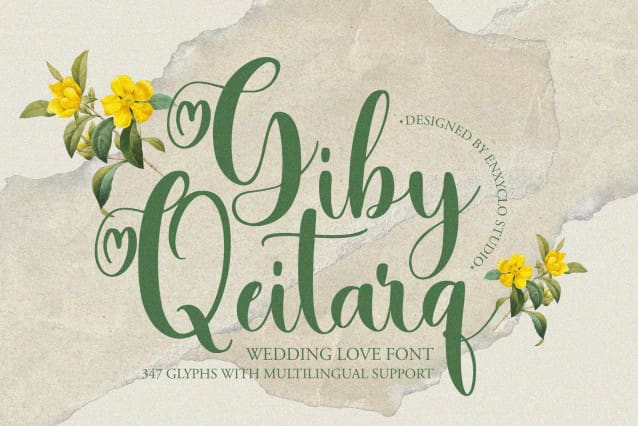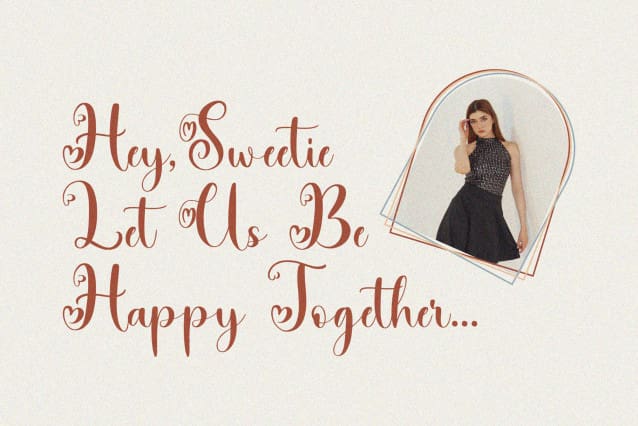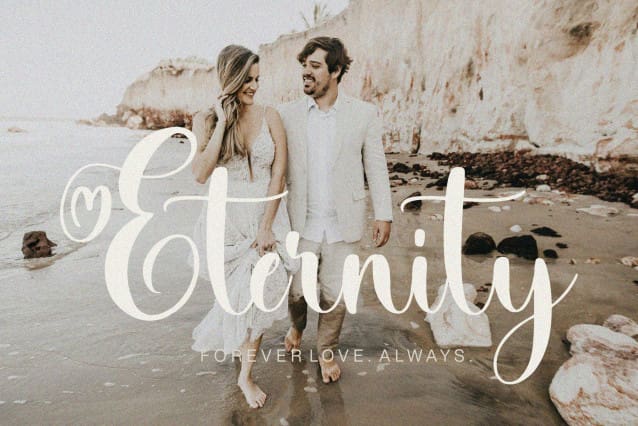
NCL Giby Qeitarq Font
NCL GIBY QEITARQ FONT is wedding love heart swash font. It is unique handwritten script font with heart or love swashes. Masterfully designed to become a true favorite, this font has the potential to bring each of your creative ideas to the highest level! NCL GIBY QEITARQ was purposely crafted to be used in large point sizes, although it doesn’t lose its magic in small point sizes. It is perfect for wedding or romantic event, headline, billboard, magazines, website, titles, poster, branding, t-shirt design, and logos. No matter the topic, this font will be an incredible asset to your fonts’ library, as it has the potential to elevate any creation. With this beautiful font, absolutely you can make your project stand out from the rest.